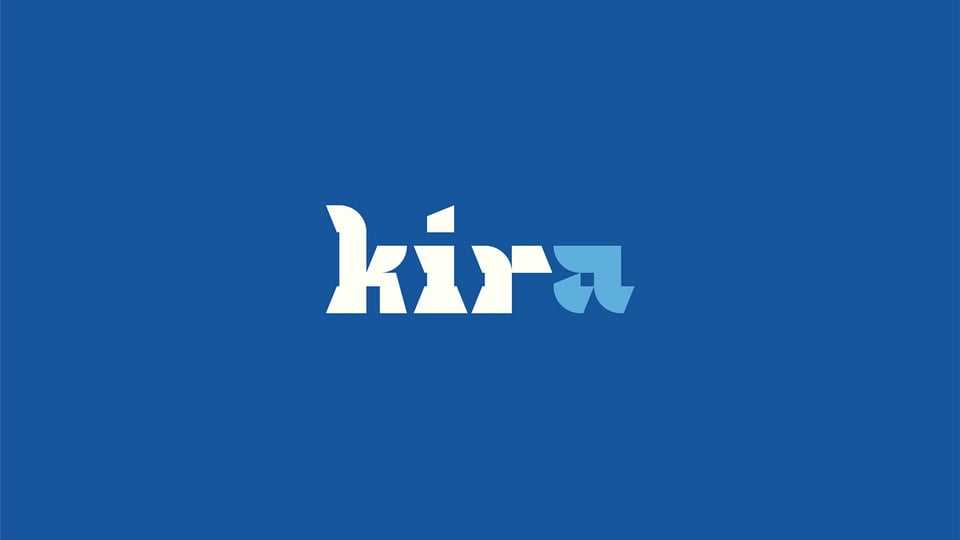
Download Kira font, a modular typeface made with 10 simple shapes. The goal behind this was to make something using simple shapes whilst keeping readability.